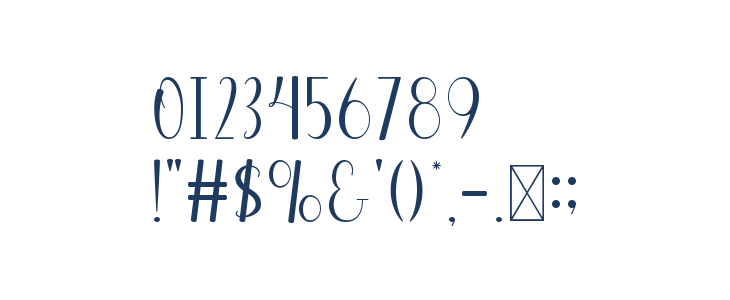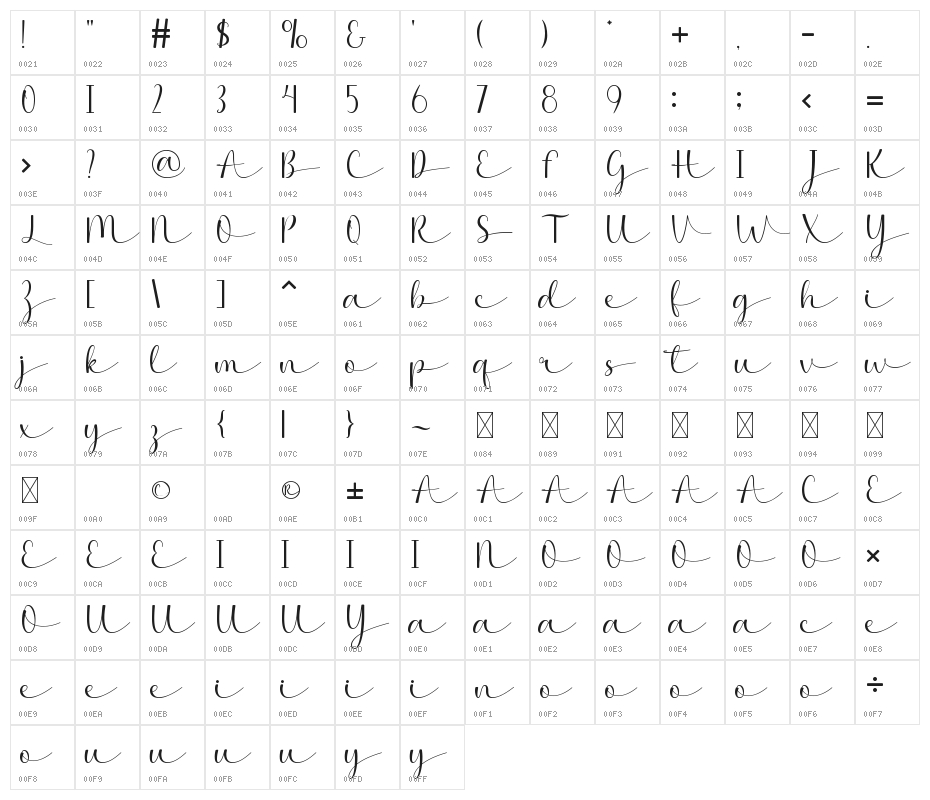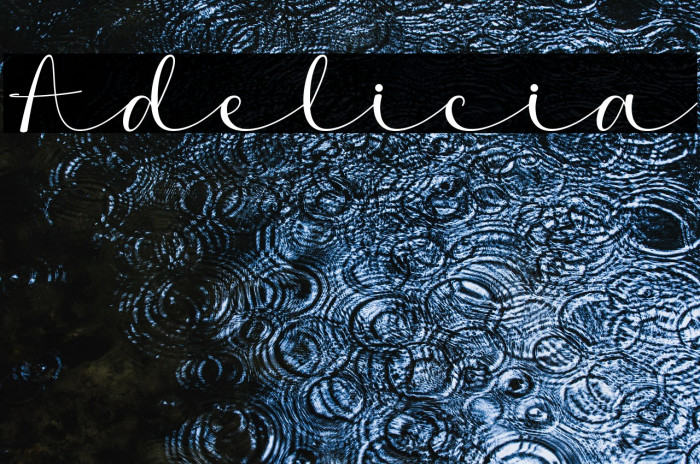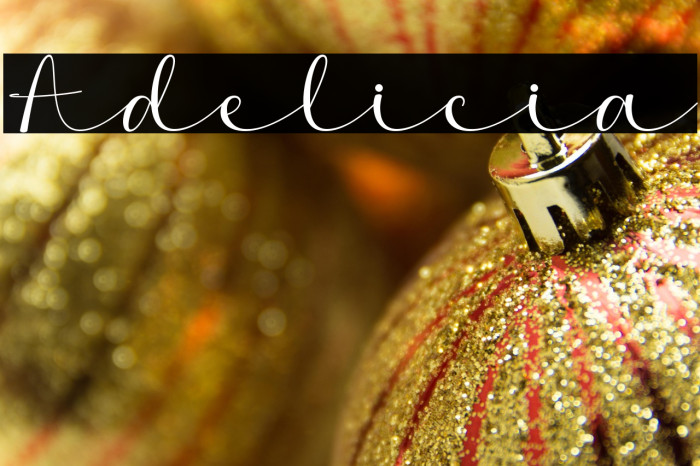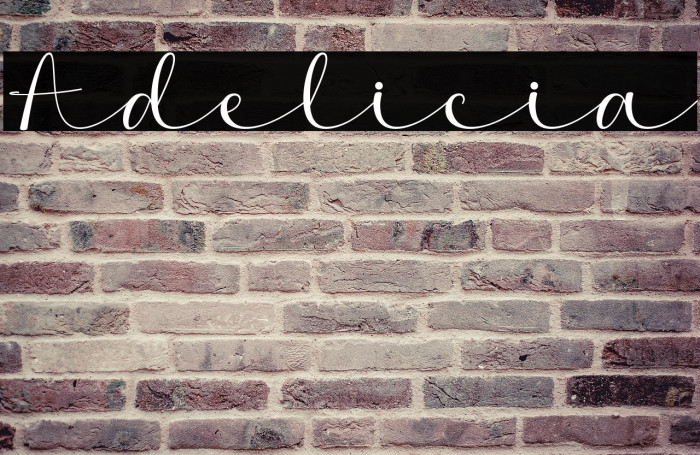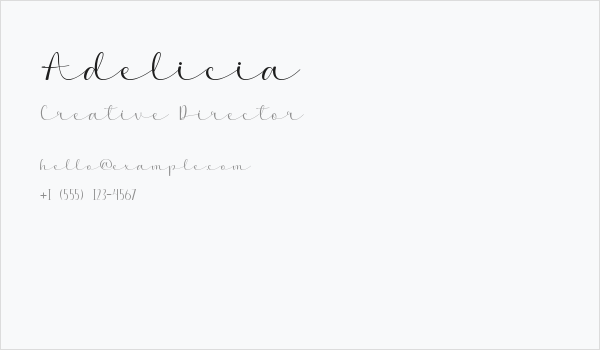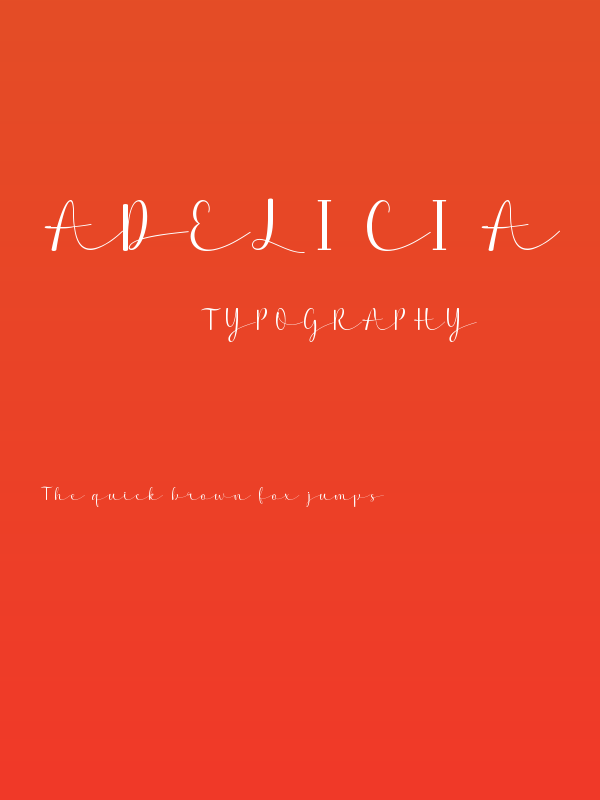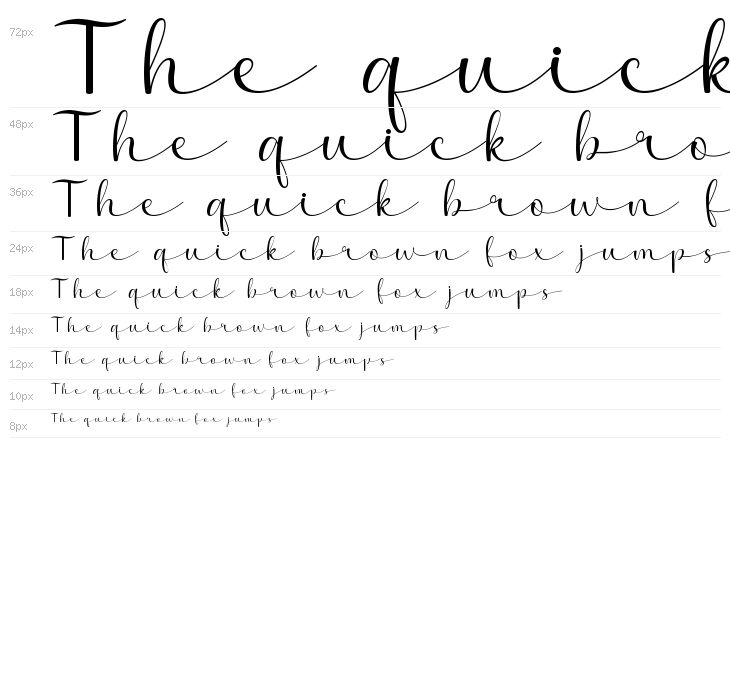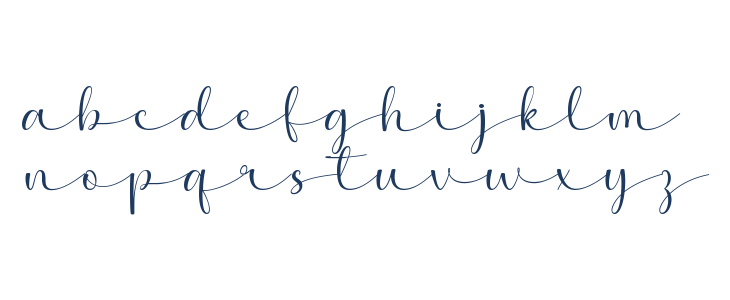
Adelicia Font
Adelicia Description
This font features a delicate and elegant script style, characterized by its flowing, cursive letterforms. The uppercase letters exhibit a graceful, sweeping motion with extended ascenders and descenders, creating a sense of movement and fluidity. The lowercase letters maintain a consistent style, with smooth, connected strokes that enhance the handwritten appearance. The numerals are distinct and slightly more structured, providing a nice contrast to the letters. Special characters are thoughtfully designed to match the overall aesthetic, making this font suitable for a variety of creative applications.
Overall StyleElegant
Use CaseLogos, Invitations, Decorative text
Proposed ProjectsIdeal for wedding invitations, greeting cards, branding, and elegant packaging designs.